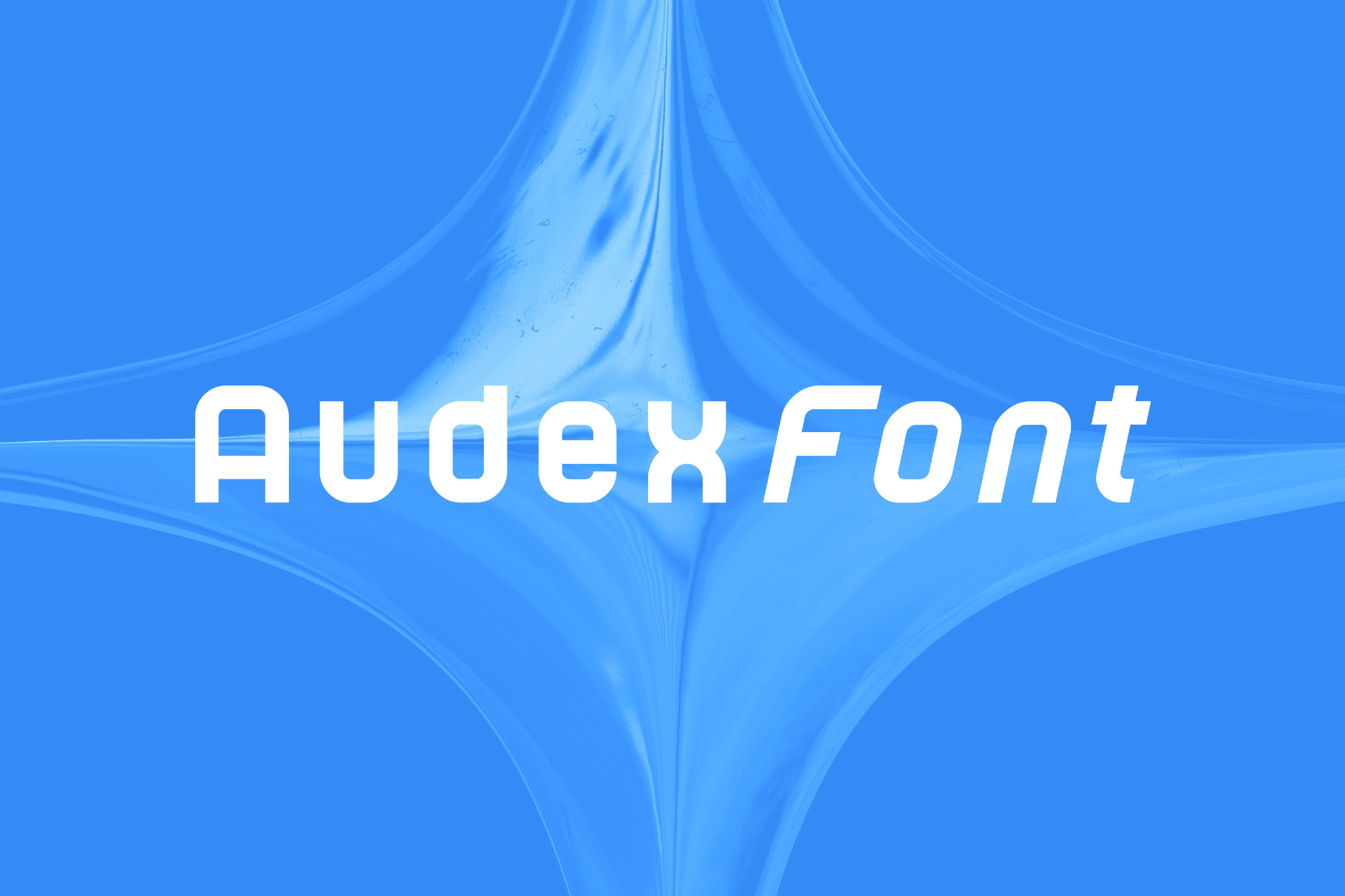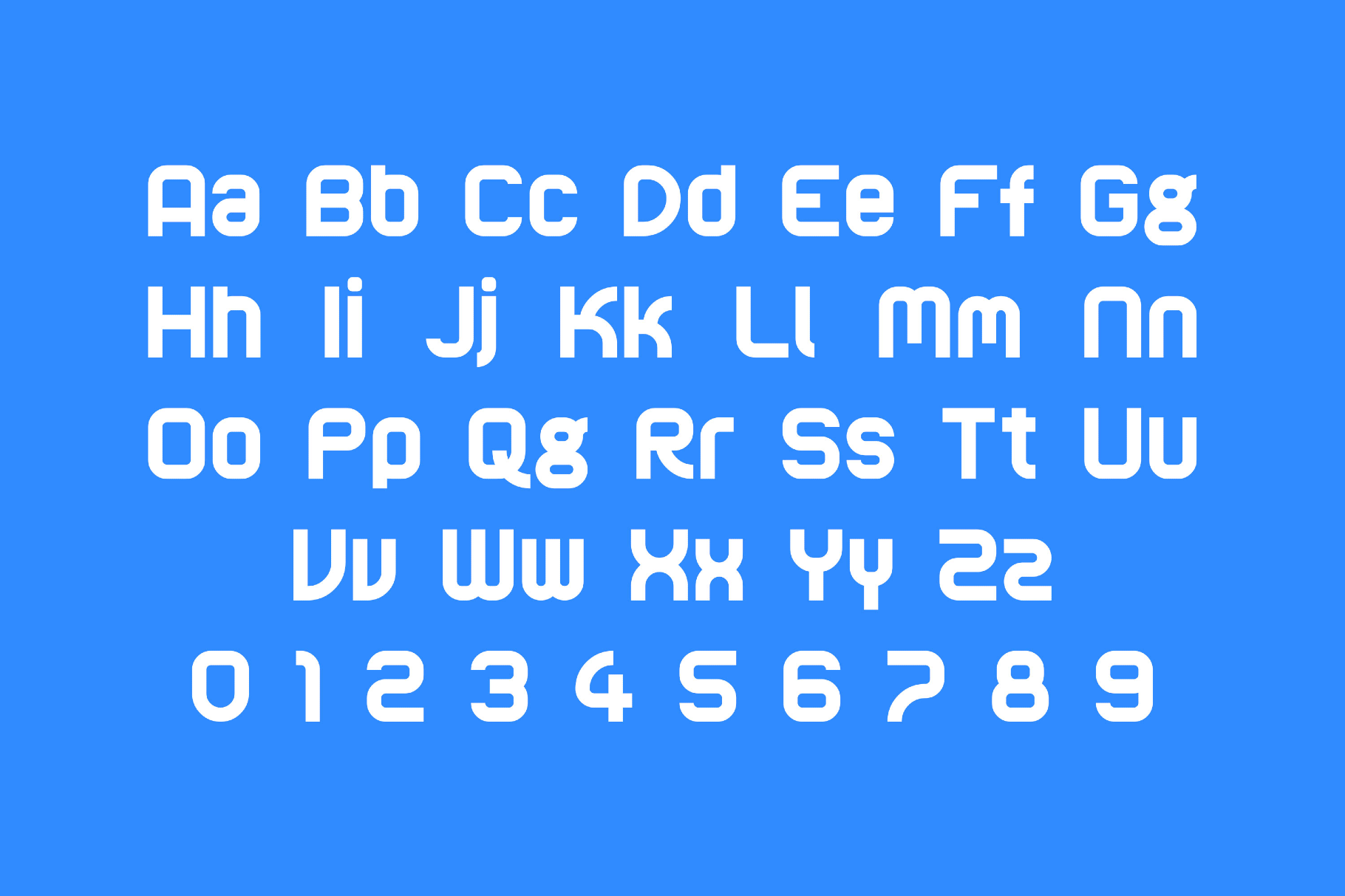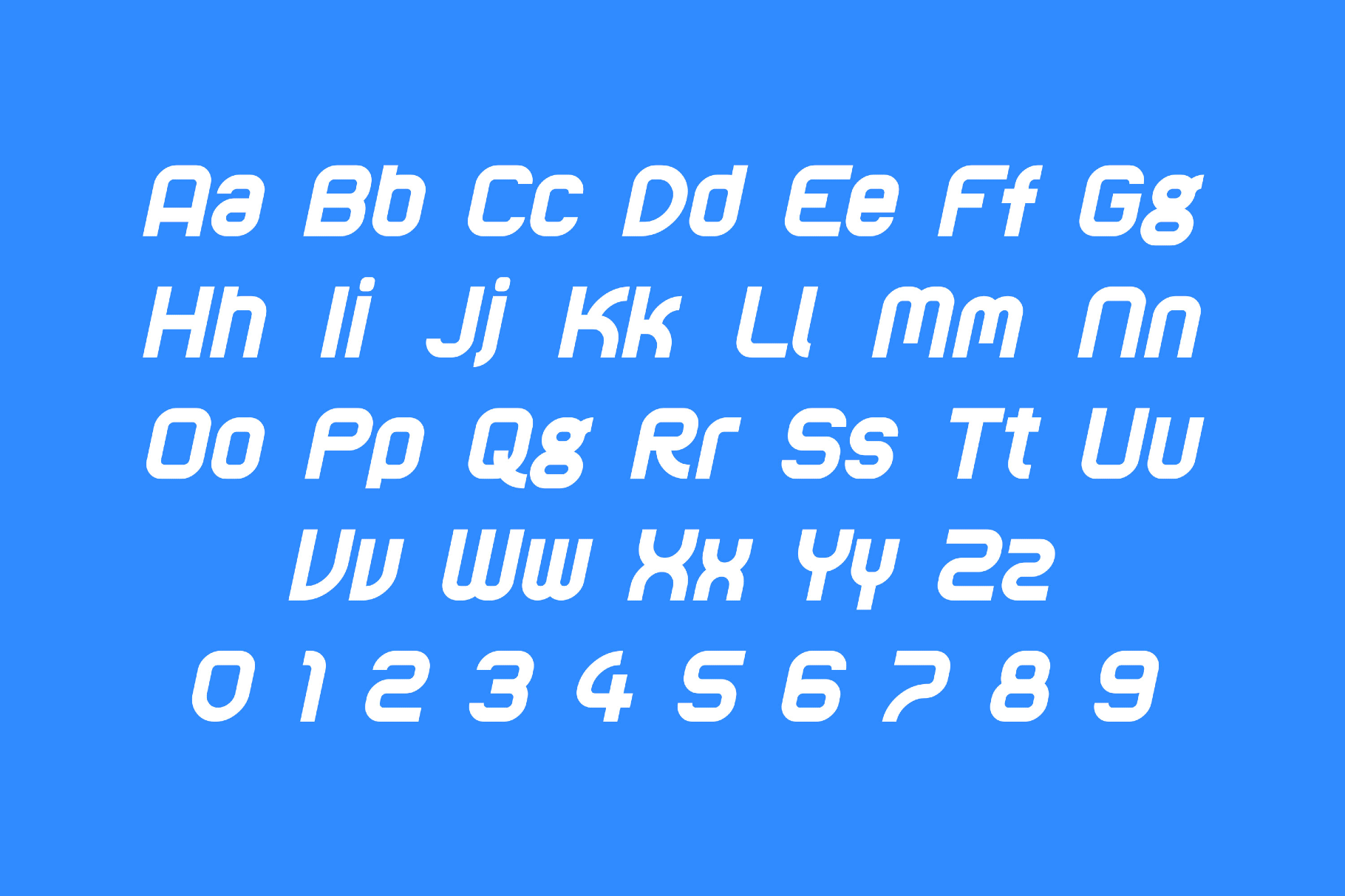
Audex 90s Space Font
Audex's bold geometry, rounded edges, and retro-futuristic vibe stay between sci-fi title screens and old electronic signage that still thinks the future is happening tomorrow. Its polished cadence works great for tech branding, game menus, poster headlines, album covers, motion graphics, digital interfaces, concept presentations, and packaging.
- 2 styles: Regular and Italic;
- uppercase and lowercase letters;
- numbers, punctuation, and symbols;
- multilingual support across an extended Latin and Cyrillic scripts.